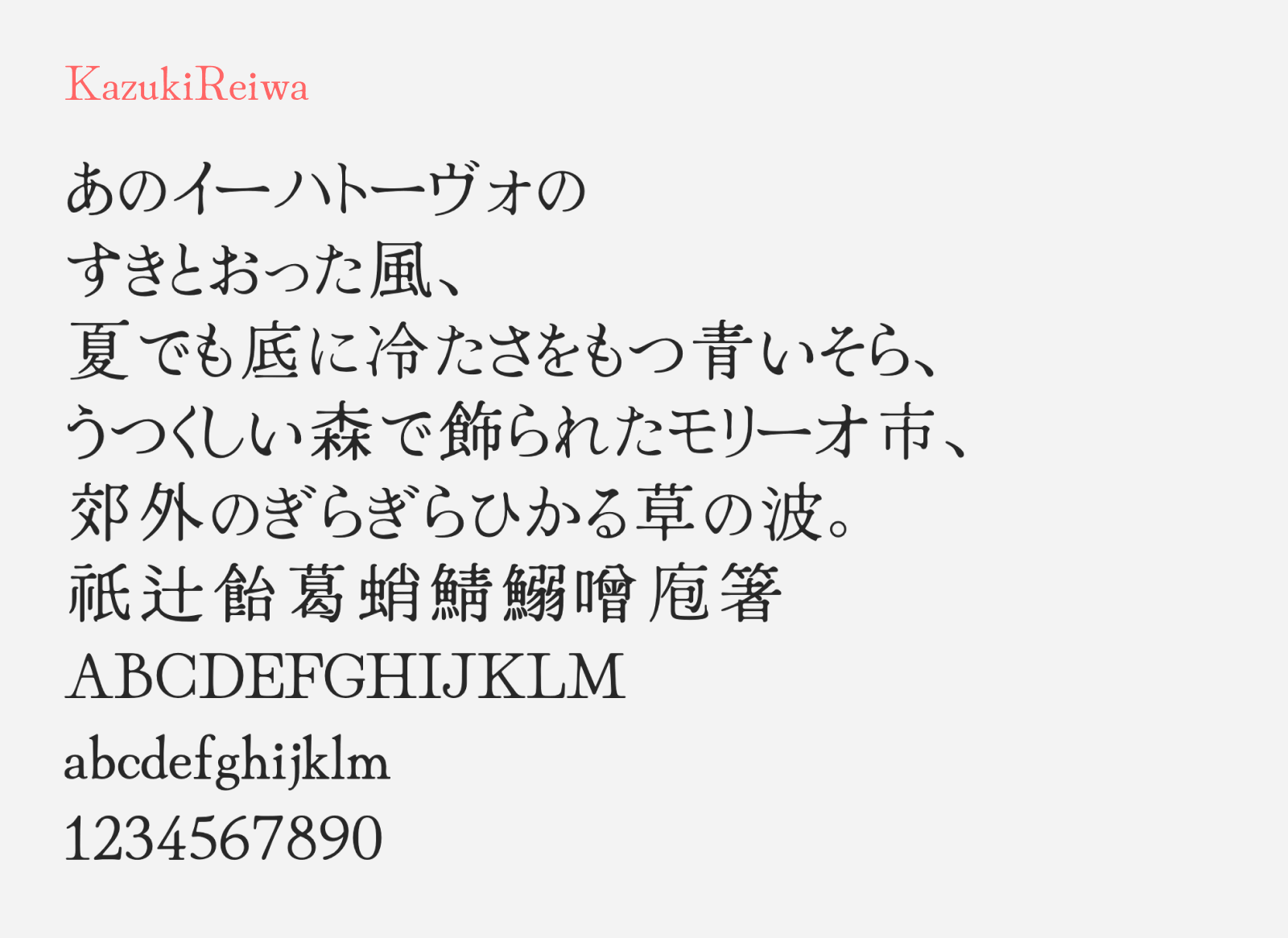
KazukiReiwa
Preview of KazukiReiwa, a free mincho style Japanese font
KazukiReiwa (一樹令和) is a traditional-looking mincho style free Japanese font that has the ink bleed effect, designed by Kazuki Kimura. Beyond the traditional character structure that gives a very old-school, vintage text look, the ink bleed effect added a unique viewing sensation, giving the print-like effect onto the digital typeface. The ink effect made the strokes look more organic, and soften the edges to look more rounded and easy to the eye.
KazukiReiwa comes with three font weights: light, regular and bold. It supports the common Japanese characters including unknown kanji support, I assumed it covered JIS Level 1 and 2, based on the total glyphs (If I have more information, I will update this post). Besides that, it also supports Latin, Cyrillic, Greek and even Braille codes. It’s free to download and be used on commercial projects, as it was released under SIL Open Font License.